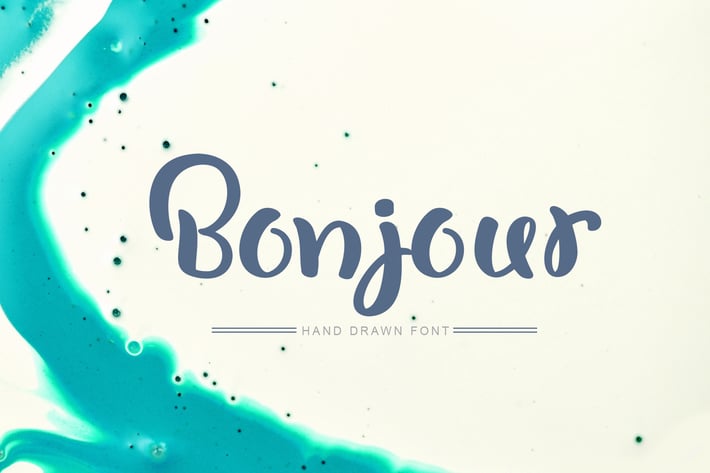
Bonjour Hand Drawn Font
timonko
Bonjour Hand Drawn Font includes unique flourishes swirl letters that give romantic and love for wedding holiday greeting cards, invitations, etc. Thin, elegant calligraphic lines give freshness to your handmade design.
Some of letters have alternative. The choice of alternative letters is possible in Photoshop and Illustrator CC and other programs that support alternatives.